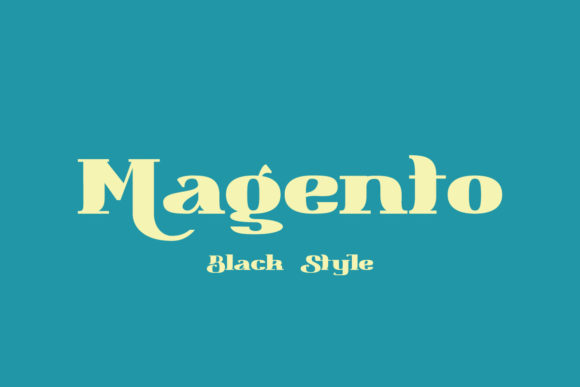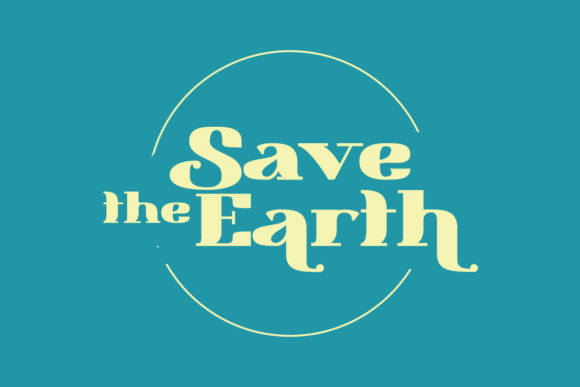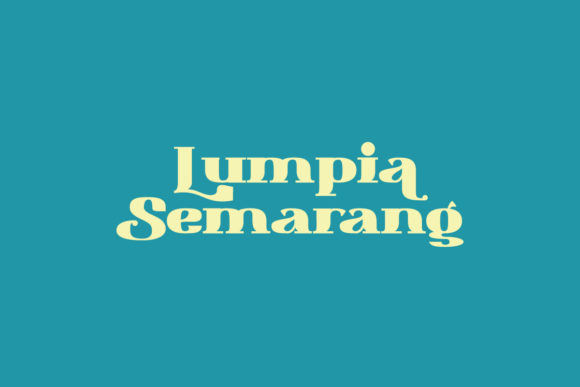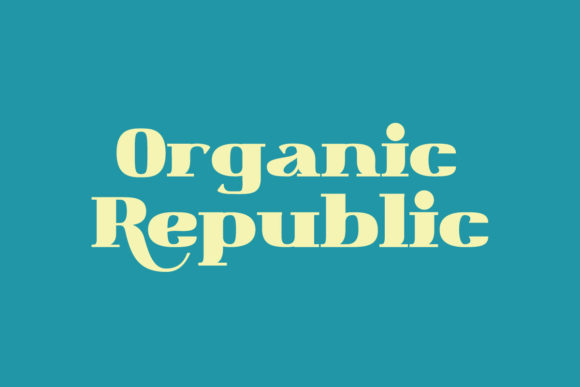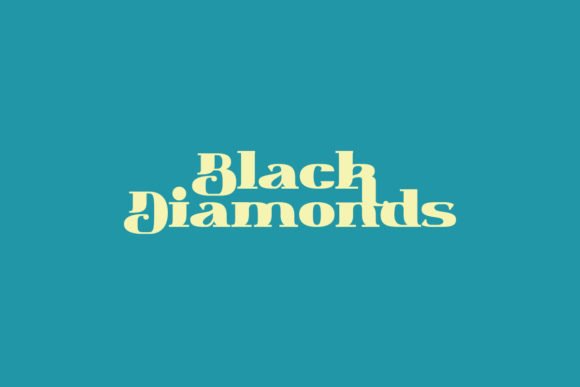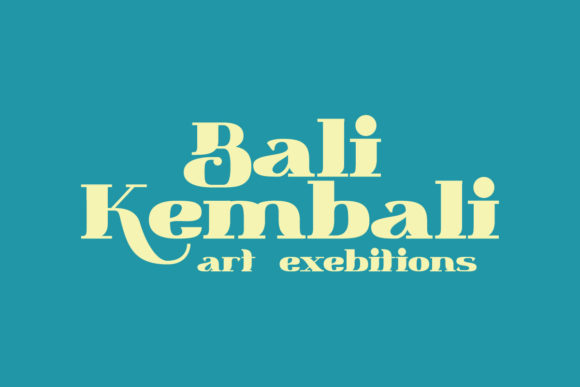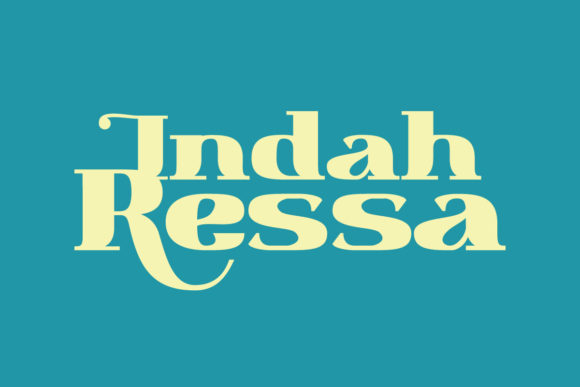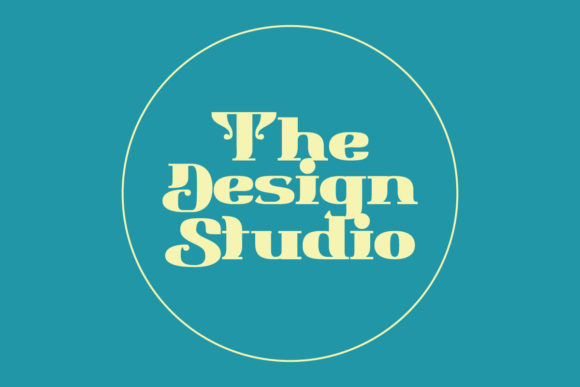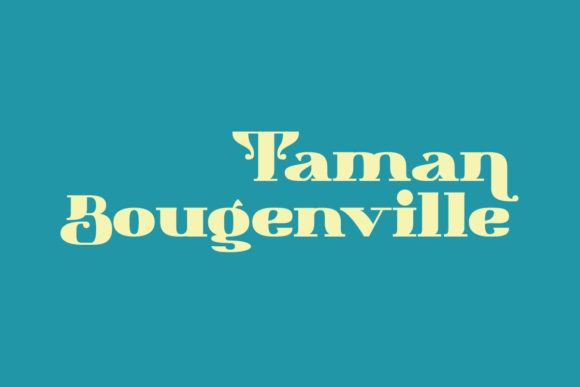
Magento Font
Magento is a stylish and bold slab serif font. Featuring distinct and imposing characters, Magento is going to be a wonderful asset to your fonts’ library. Add it confidently and you will love its impact on your projects.